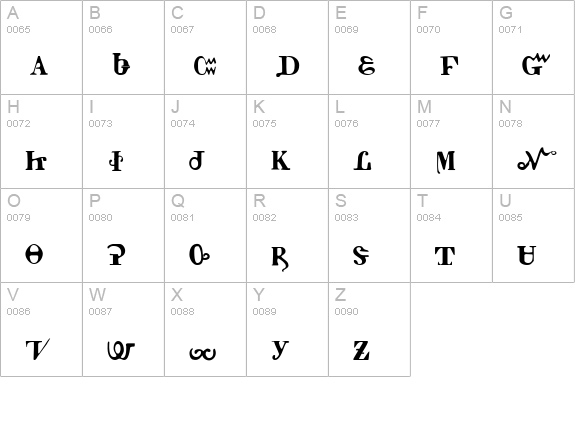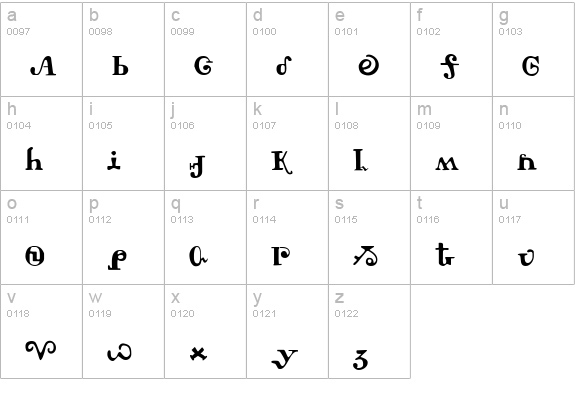
Tschiroki font is a visually stunning typeface that effortlessly combines elegance and simplicity. Its clean lines and smooth curves make it perfect for both professional and creative projects. This versatile font is sure to captivate your audience and leave a lasting impression. What sets Tschiroki font apart is not only its impeccable design but also the fact that it is available for free. Yes, you heard it right! Tschiroki font can be downloaded free of charge at FontsMarket.com. This means that you can enhance your designs and projects without any extra costs. Whether you are a graphic designer, a web developer, or simply someone who appreciates the beauty of typography, Tschiroki font is a must-have in your collection. Its timeless appeal and wide range of weights make it suitable for various purposes, such as logos, headlines, posters, and more. With Tschiroki font, you have the freedom to unleash your creativity and create stunning visuals. Its legibility and readability ensure that your message will be effectively conveyed to your audience. The carefully crafted letterforms and attention to detail make this font a true masterpiece. Don't miss out on the opportunity to elevate your designs with Tschiroki font. Visit FontsMarket.com today and download this incredible font for free. Experience the power of beautiful typography and take your projects to new heights.